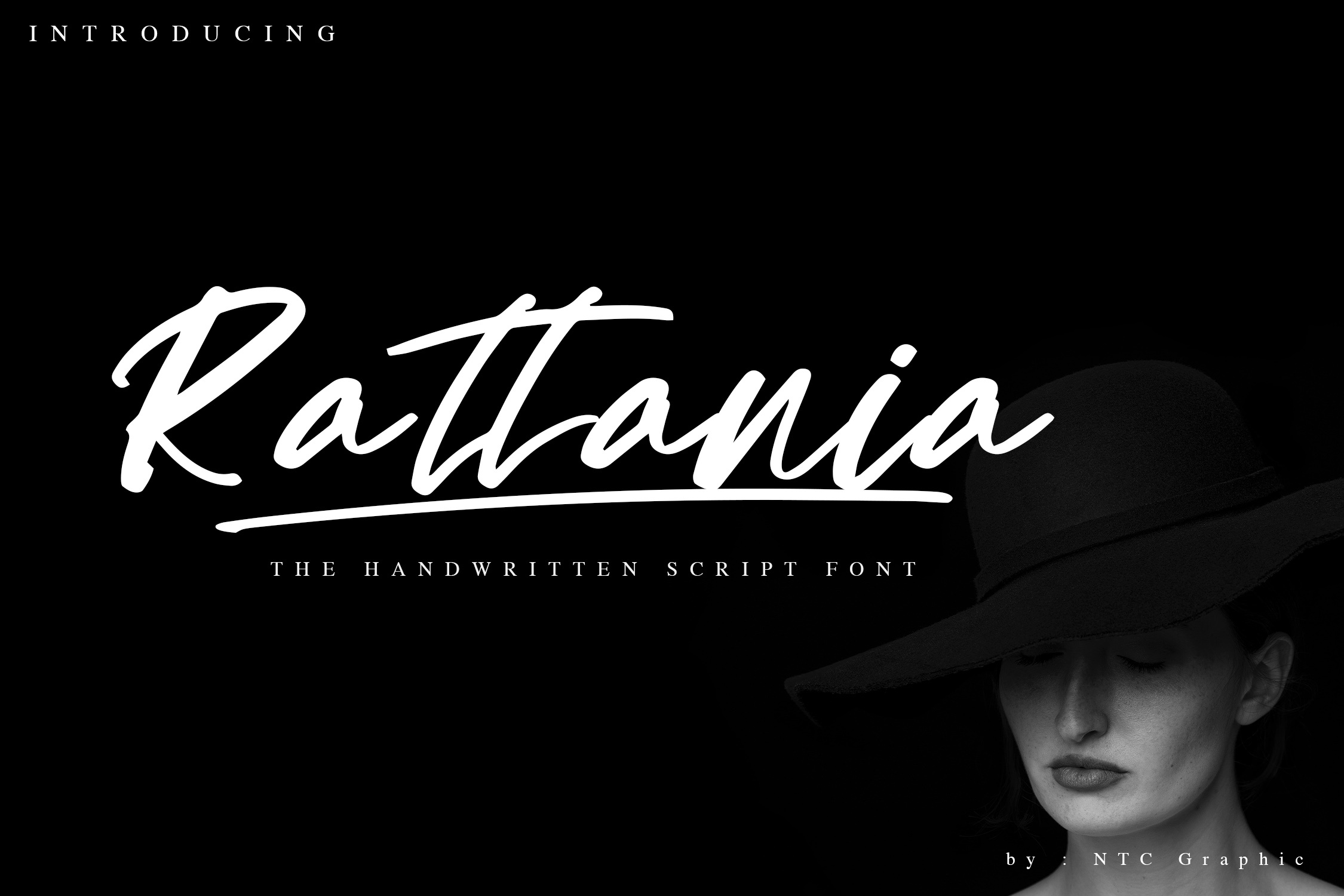
Rattania Script Font Preview
Rattania Script Font Preview ! Rattania Script is a script font with handwritten style. Available for purchased !!, visit my store :